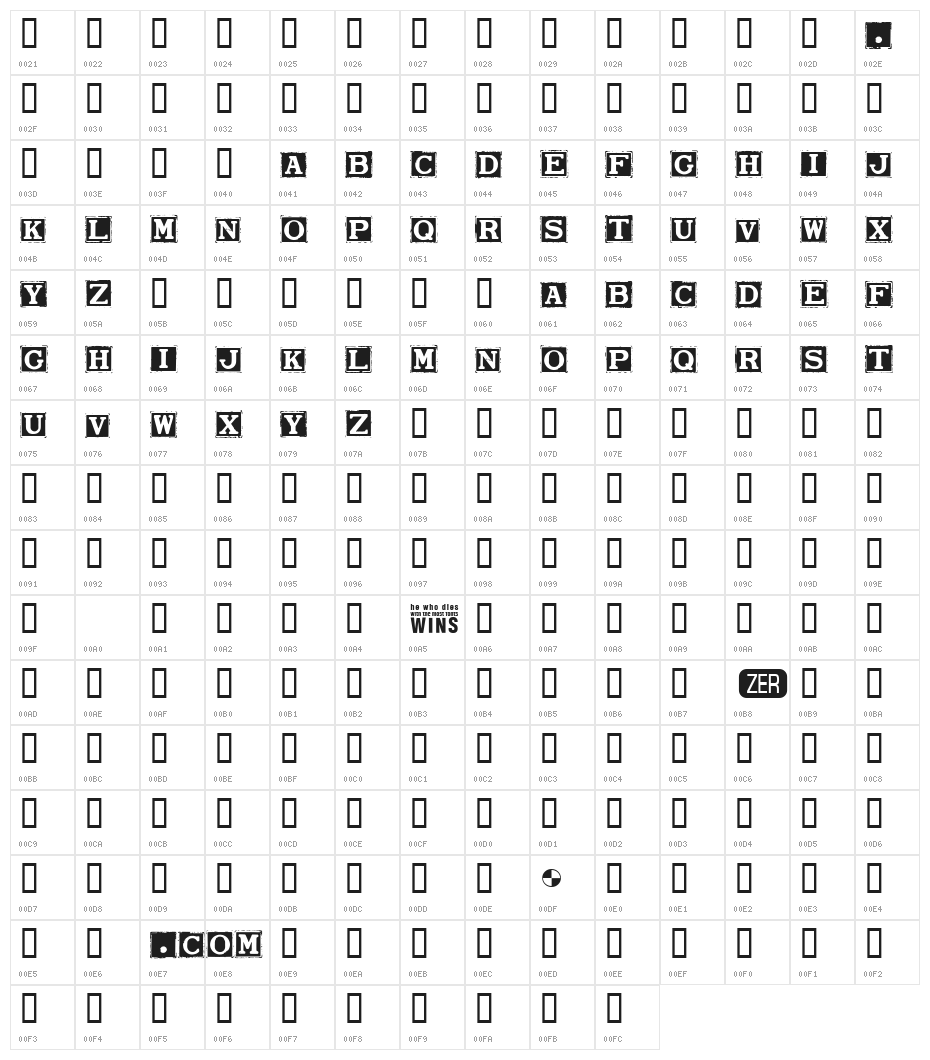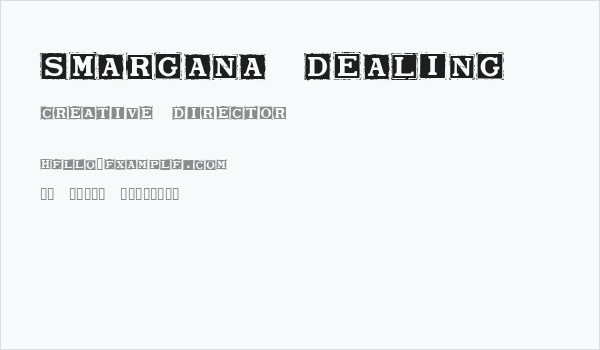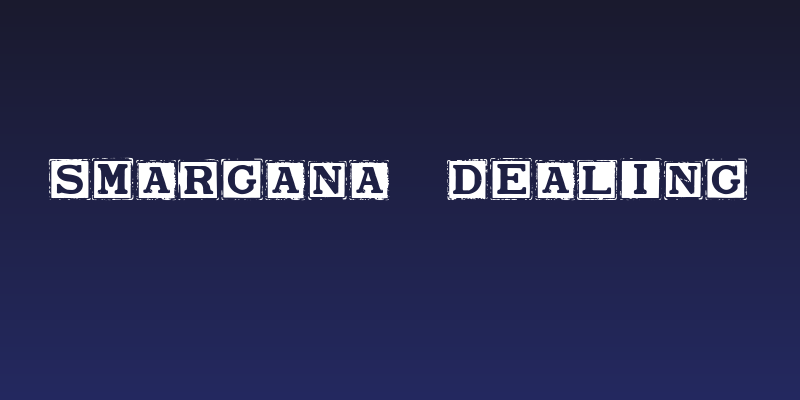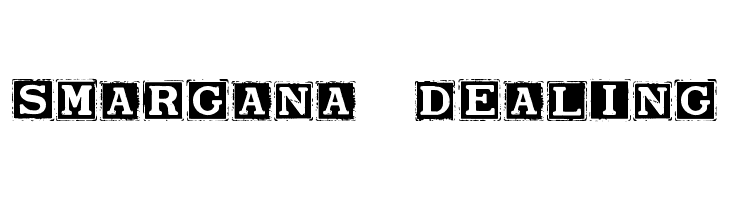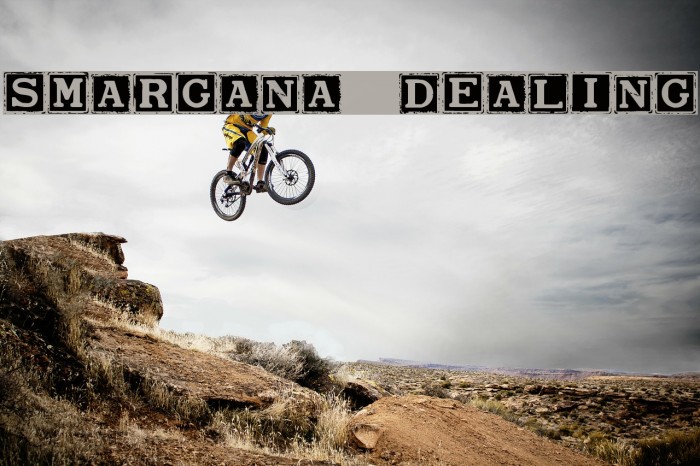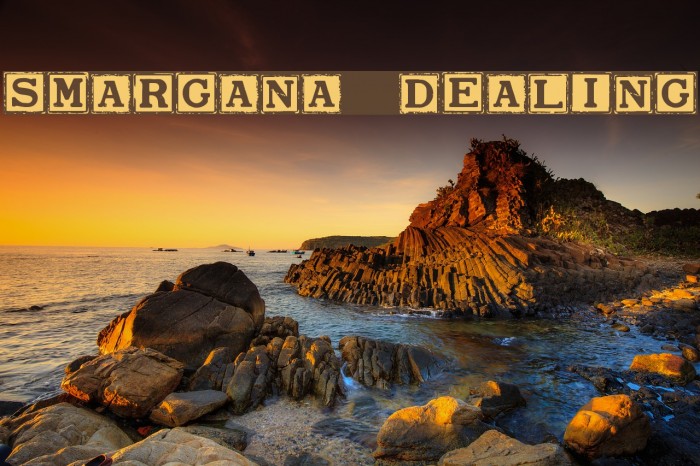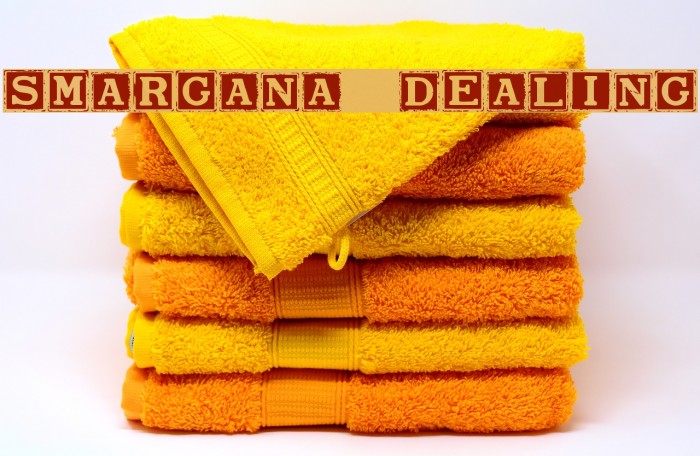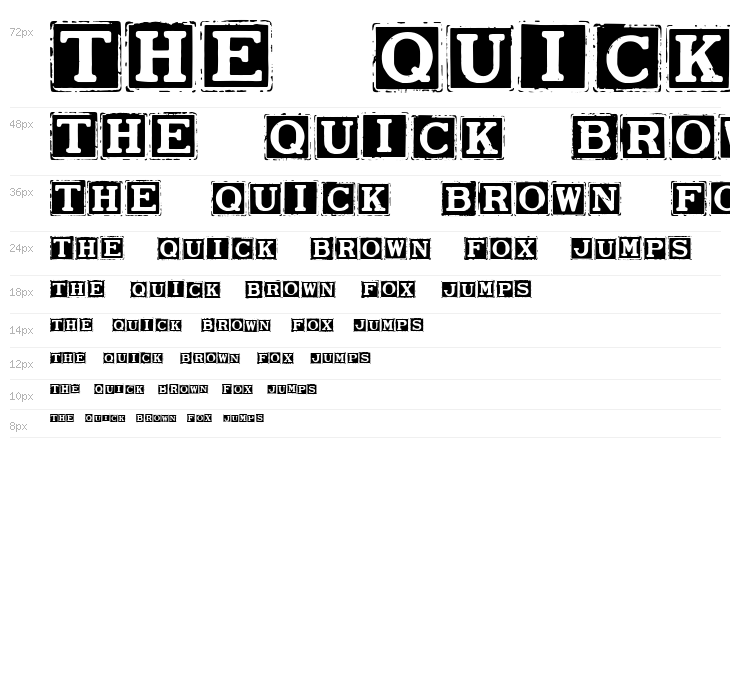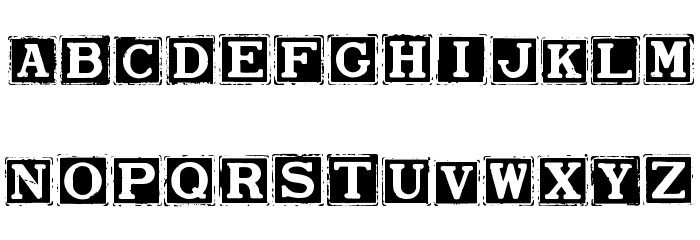
Smargana Dealing Font
Smargana Dealing Description
This font features a bold, distressed style with a vintage, grunge aesthetic. Each character is enclosed in a square, giving it a stamp-like appearance. The uppercase letters are prominent and eye-catching, making them suitable for impactful designs. The font's rough edges and textured look add a sense of ruggedness and authenticity, ideal for projects that require a retro or industrial feel. The characters are evenly spaced within their boxes, ensuring readability while maintaining the unique style. This font is perfect for creating designs that need to stand out with a bold, artistic flair.
| Proposed Projects | Ideal for posters, album covers, branding, and any design needing a bold, vintage touch. |